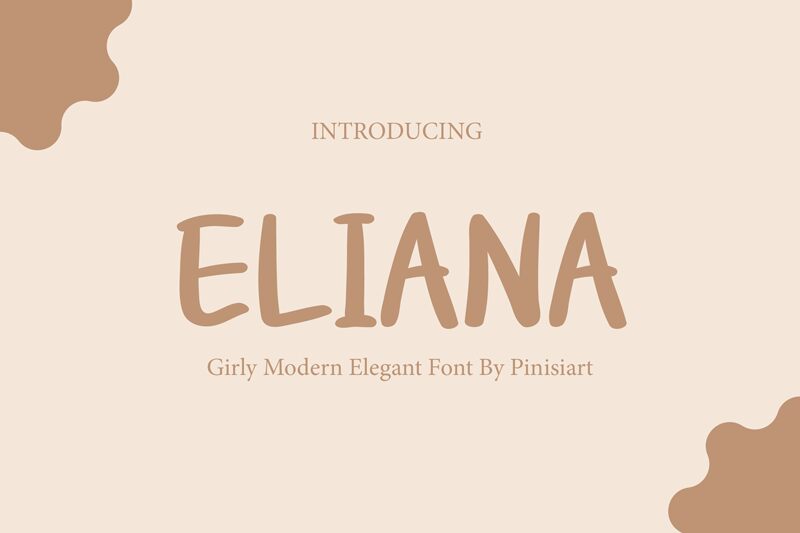
Eliana font by Pinisiart is a sleek, modern, and versatile free handwritten style. Eliana’s flowing and sophisticated contours perfectly balance between informal and formal; approachable and elegant. The font presents an overall minimalist and feminine presence that can be portrayed in multiple ways to match your own preferences.
The font can enhance book covers, magazine headlines, website headers, social media posts, invitations, packaging, logotypes, and typography artwork whose character and accessibility matter.